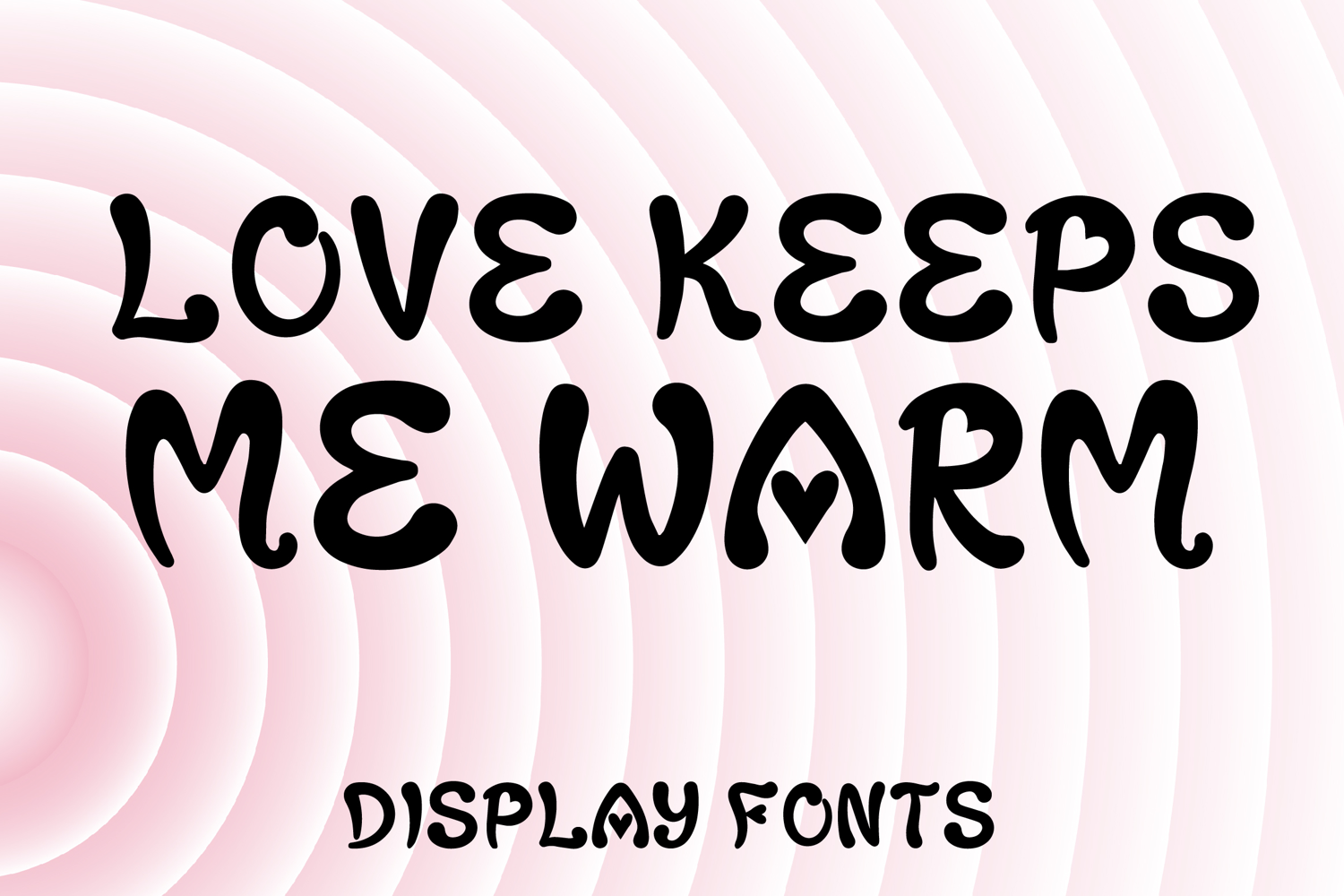
LOVE KEEPS ME WARM
LOVEKEEPSMEWARM-Regular
LOVE KEEPS ME WARM is a whimsical decorative display font with a playful hand-drawn style and sweet romantic charm. Its uppercase letterforms feature bold rounded strokes, soft organic curves, and adorable heart-shaped details that create a warm, cheerful, and eye-catching look. Designed with uppercase letters A–Z and numbers 0–9, LOVE KEEPS ME WARM is perfect for branding, invitations, posters, packaging, quotes, social media graphics, and creative projects that need a lovable and memorable statement.